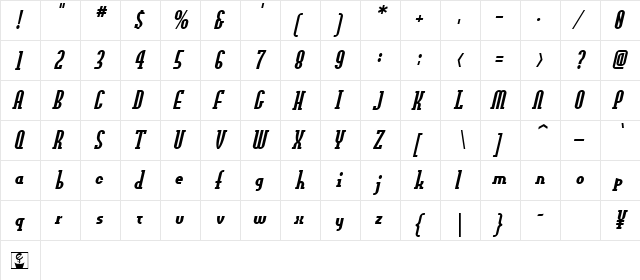
Design Context for OLDNEW Typeface
OLDNEW offers clean, dependable letterforms without strong stylistic allegiance, making it a practical choice for designers who need flexibility.